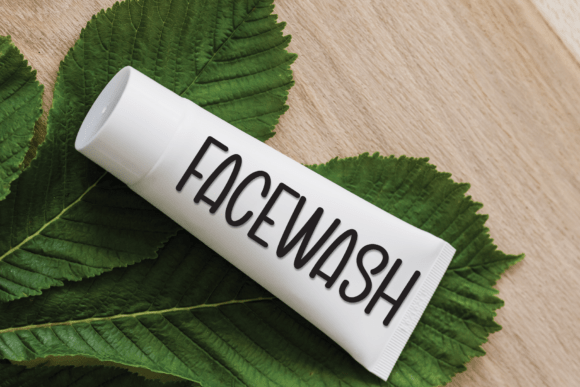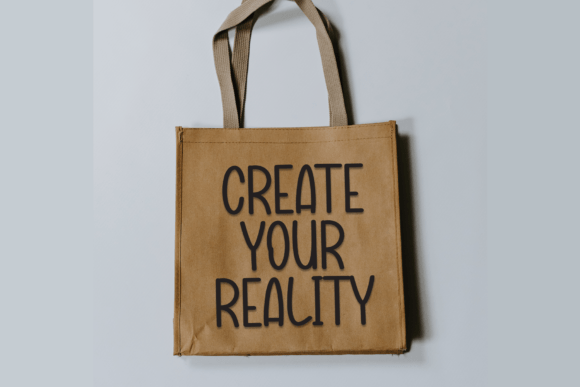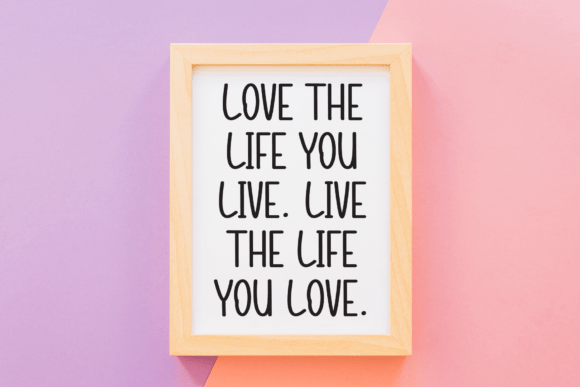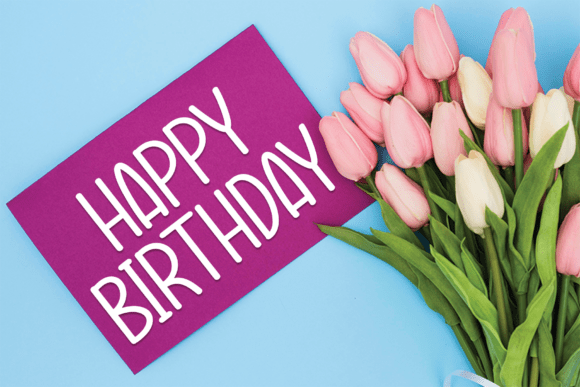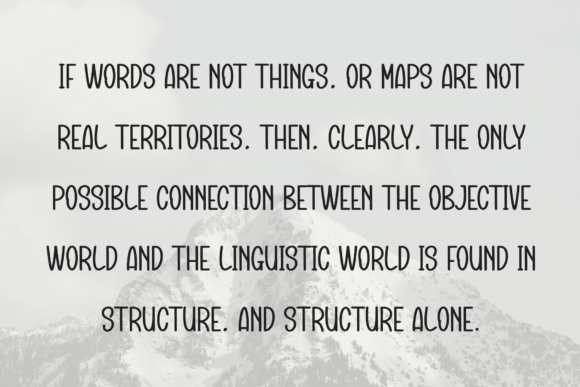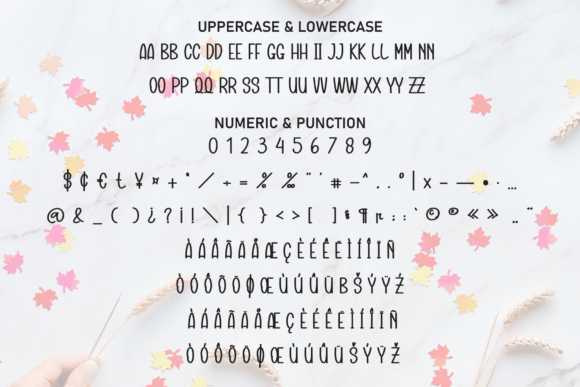
Introduction to Season Grateful Font
There’s something magical about sitting at your desk, surrounded by papers, paint, and a cup of coffee, waiting for inspiration to strike. And then, it hits you – the perfect idea for a design project that will bring joy to others. For many of us, this moment is what drives us to create. But, what happens when you need a design resource that captures the essence of that feeling? Enter the Season Grateful Font, a charming and amicable handwritten display font that is sure to add a touch of effortless delight to your creative project.
This beautifully crafted font is a valuable addition to any designer’s toolkit, offering a high-quality, transparent background that is perfect for a wide range of applications. Whether you’re working on a wedding invitation, a personalized card, or any other design project that calls for a dash of joy and fun, the Season Grateful Font is sure to be a hit. And the best part? It’s available for free download, making it an accessible and affordable design resource for designers of all levels.
Key Features of Season Grateful Font
- High-quality design: Season Grateful Font is a unique and stylish font perfect for creative projects.
- Unique characteristics: Season Grateful Font features a distinctive and elegant design, perfect for adding a touch of sophistication to any creative project.
Honest Review: Season Grateful Font
I recently had the chance to work with the Season Grateful Font, and I must say it’s been a delightful experience. This font is perfect for any creative project that requires a touch of elegance and sophistication. ✨
- One of the things that stood out to me was the high quality of the font. It’s crisp, clean, and has a lovely texture that makes it stand out.
While the Season Grateful Font is an excellent addition to any design resource library, there are a few limitations to be aware of. ⚠️
- The font may not be suitable for bold or dramatic designs, as it’s a more understated and subtle choice.
Overall, I’m really impressed with the Season Grateful Font. It’s a great choice for designers who want to add a touch of elegance and sophistication to their creative projects. I highly recommend it as a design resource, and I’m looking forward to using it in future projects.
Tips for Getting the Most Out of Season Grateful Font
Use Season Grateful Font with a transparent background to create stunning graphics and designs. Experiment with different font sizes, colors, and combinations to achieve the desired look for your creative project.
Season Grateful Font is suitable for a wide range of design projects, including:
- Marketing materials and brochures